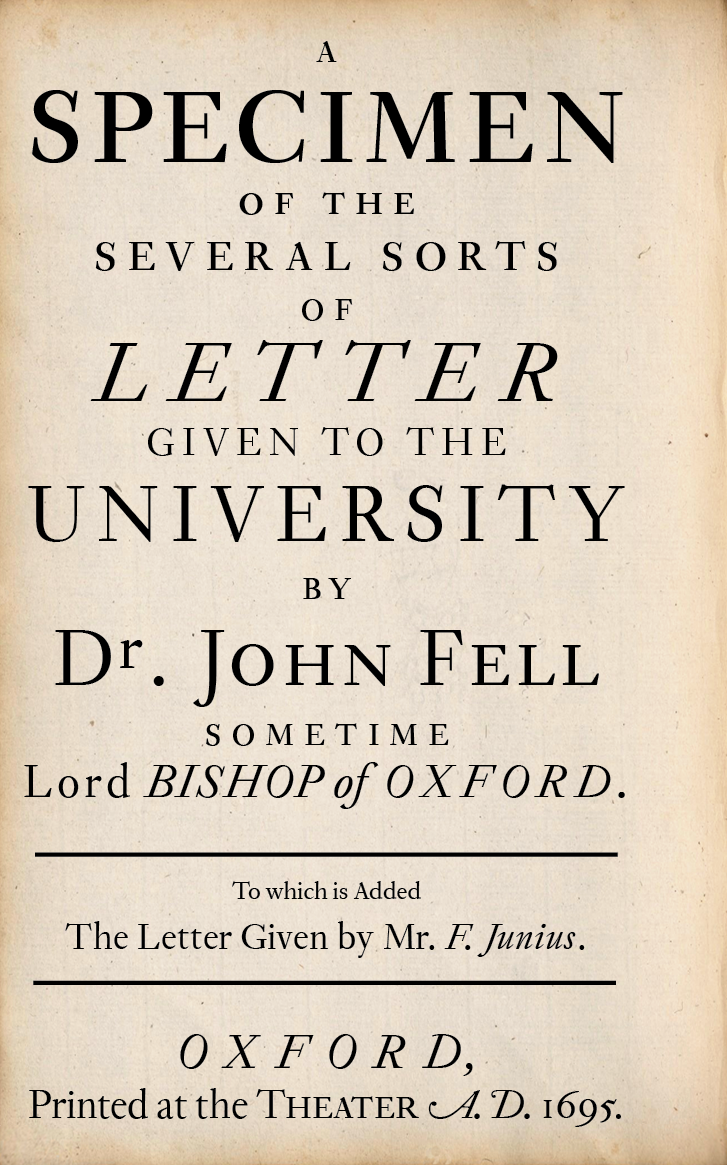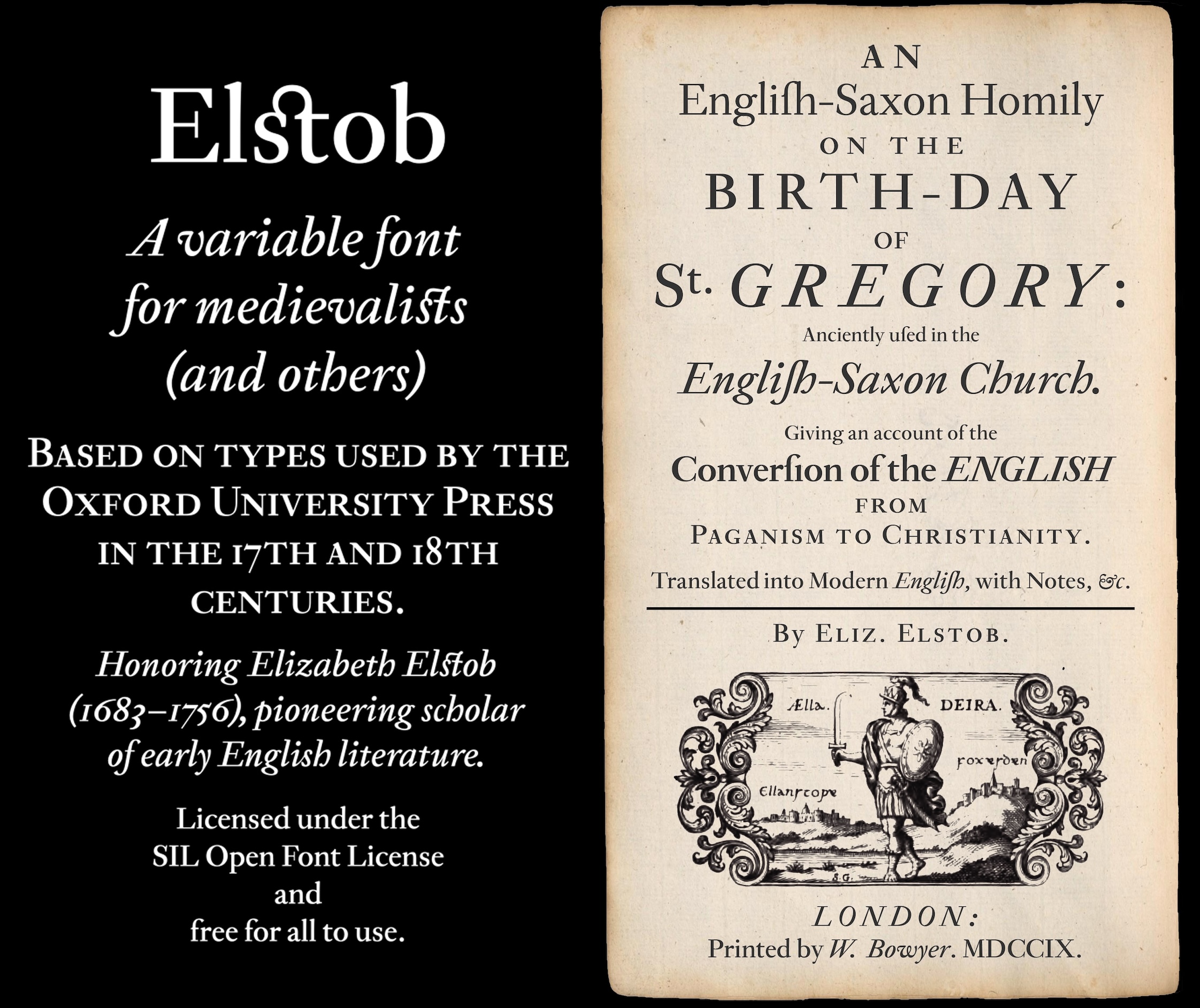
A variable font for medievalists
The Elstob font (named for the eighteenth-century Anglo-Saxonist Elizabeth Elstob) is based on the Double Pica commissioned by Bishop John Fell in the seventeenth century. Elstob is designed as a webfont. Thus:
- It is a variable font, with weights ranging from ExtraLight to ExtraBold, optical sizes from "6pt" (for fine print) to "18pt" (for headlines) and also a grade axis (0.0–1.0). (A non-variable desktop version is also available.)
- Outlines have been kept simple to limit file size.
- The intention of the font is to include everything in Unicode useful to a substantial number of medievalists, but the character set has been limited to under 2000 glyphs to keep file size reasonable. Many characters from the Medieval Unicode Font Initiative, present in the designer's Junicode font, can be represented with combining diacritics.